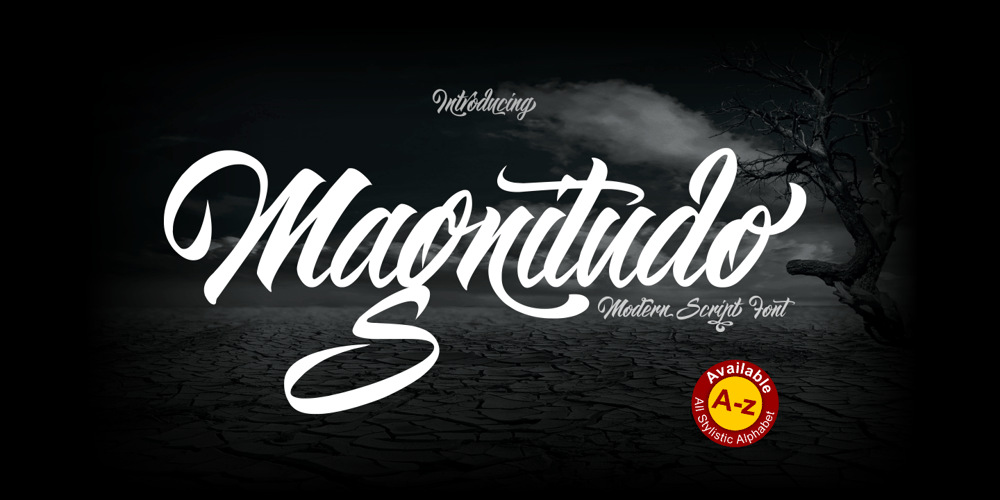
Magnitudo
Magnitudo font
Magnitudo Font Family was designed by Ahmad Zulfikar Ali and published by ZetDesign. Magnitudo contains 1 styles and family package options. Magnitudo is a very amazing handwritten font. This font is equipped with many choices of styles (alternative A-z forms), making it easier for design workers to determine the form of writing according to their desired tastes. This font also features an international accent to be used in several countries at once.I hope you are interested in my work. Thank you…